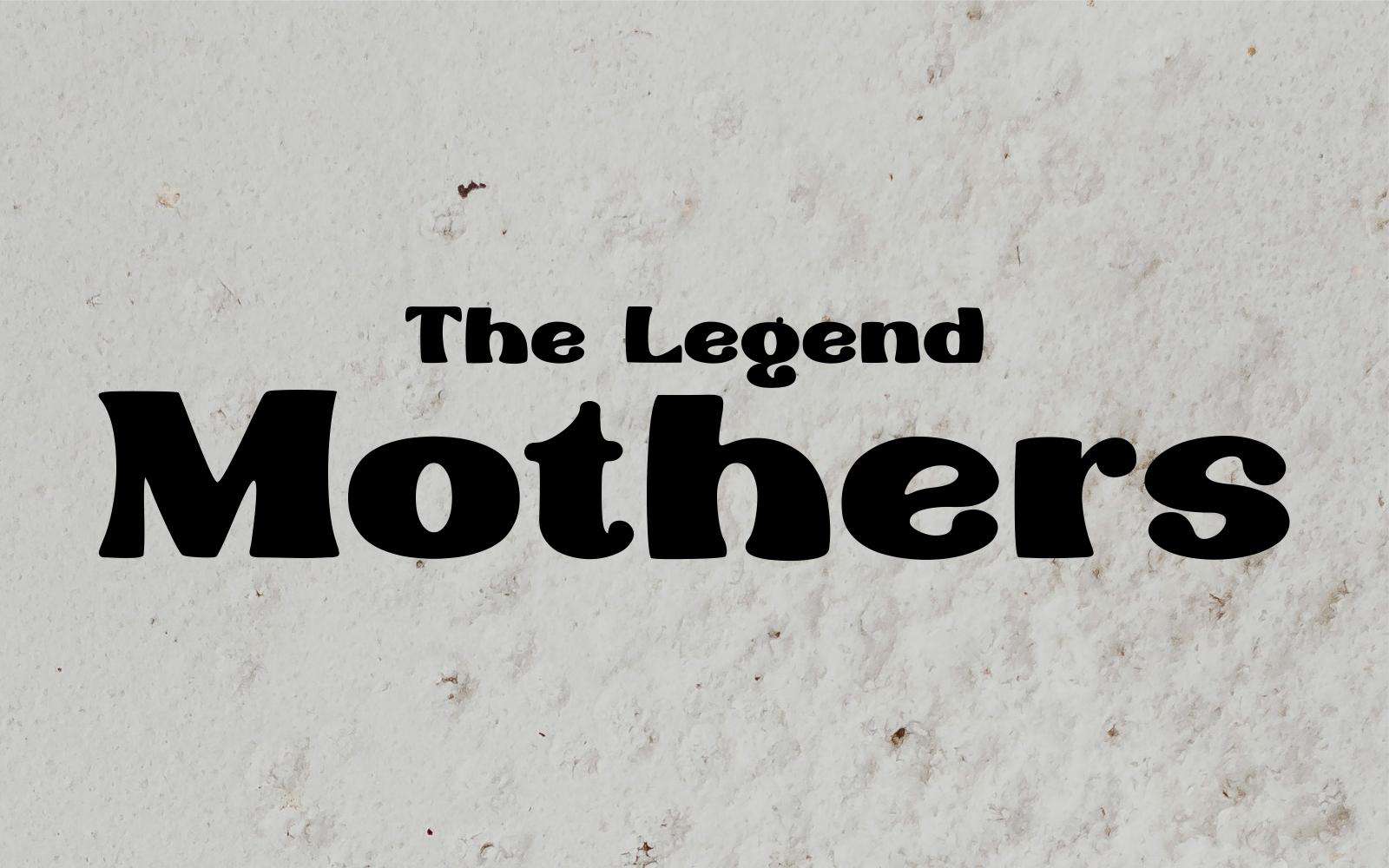
The Legend Mothers Font | Elegant Script Typeface
The Legend Mothers is a luxurious script calligraphy font that seamlessly blends timeless elegance with a modern flair. Its refined curves, graceful flow, and artistic details make it ideal for upscale design projects such as branding, wedding stationery, logos, packaging, and social media visuals. Available in both .OTF and .TTF formats, this font offers versatile usability and ensures your designs exude charm and sophistication. Elevate your creativity with this elegant handwritten masterpiece.